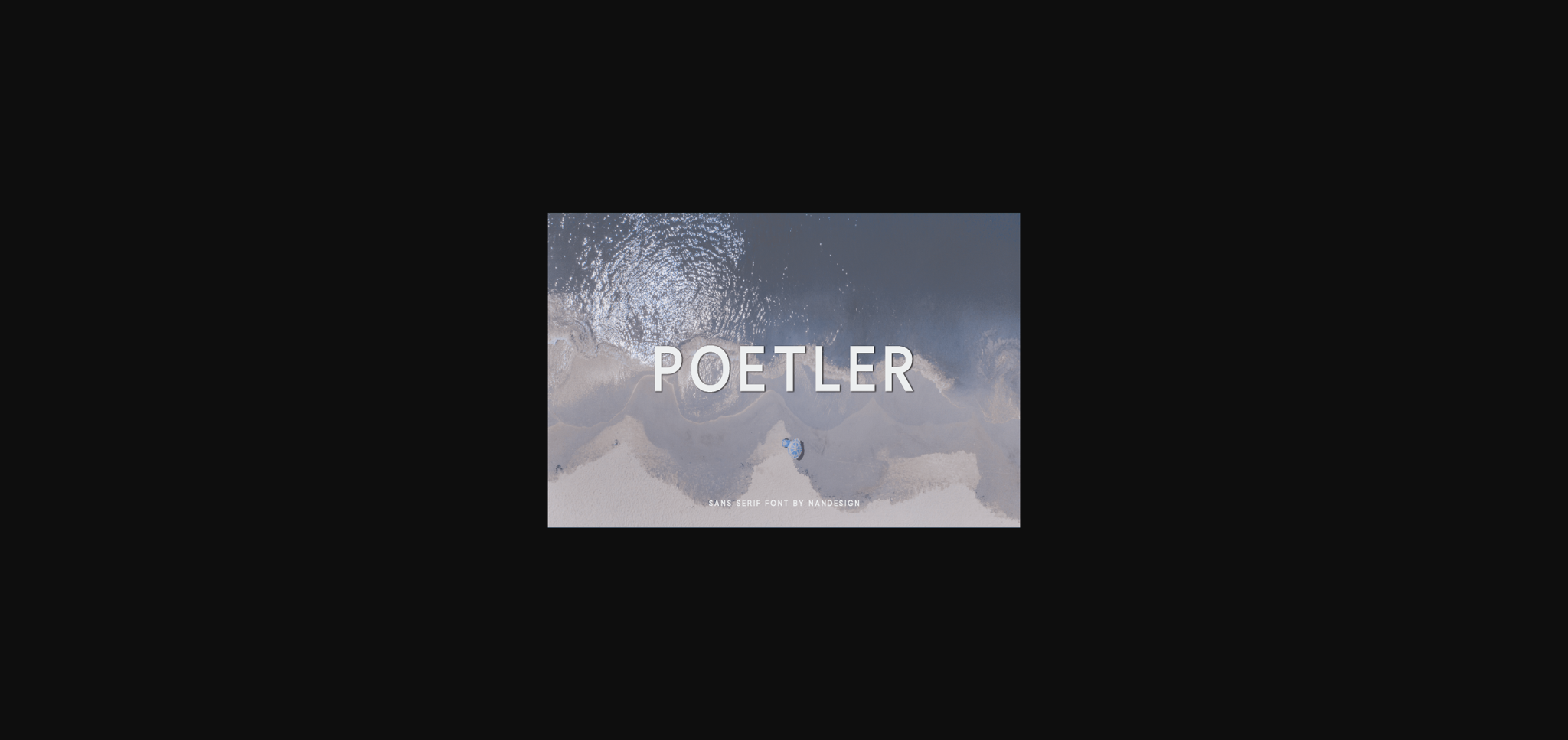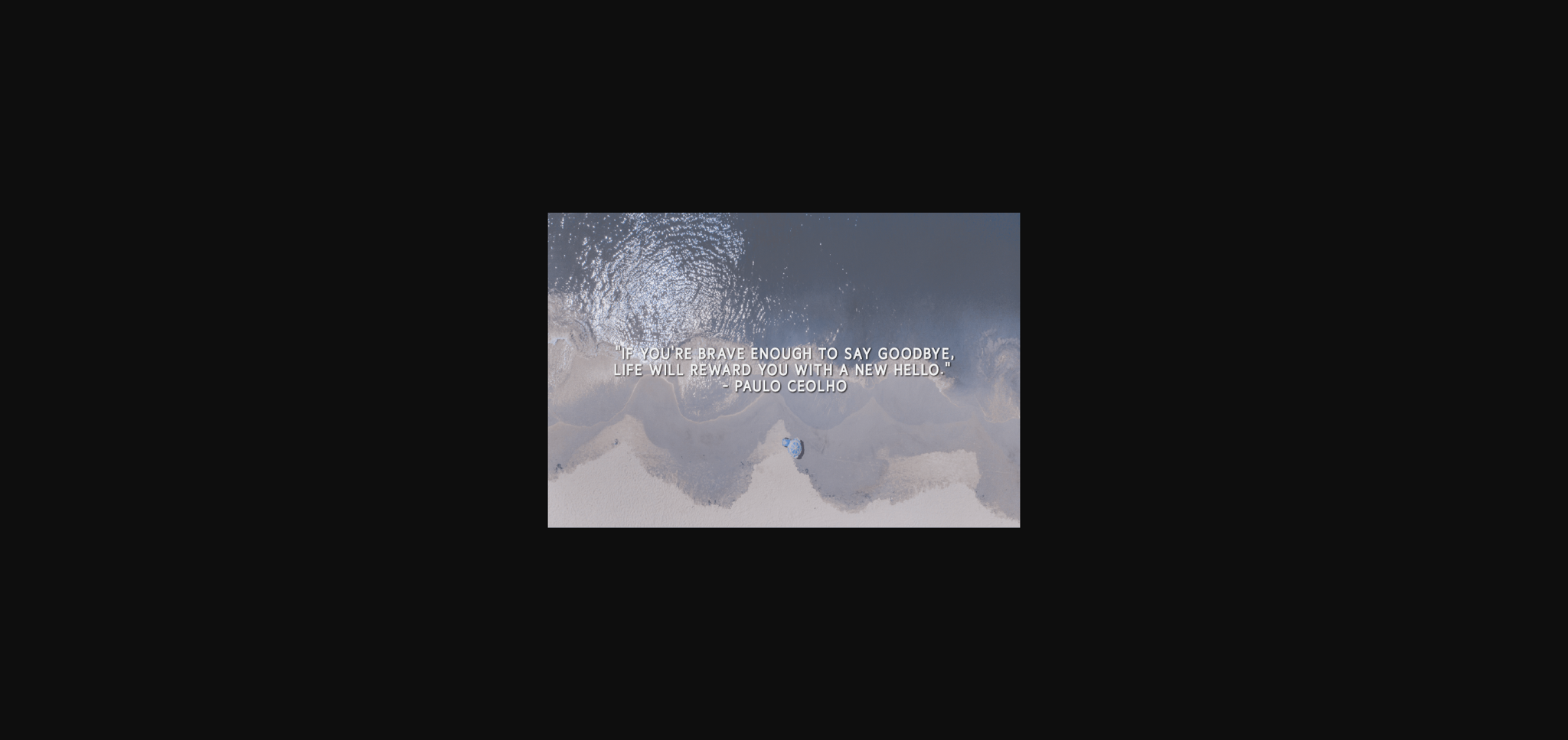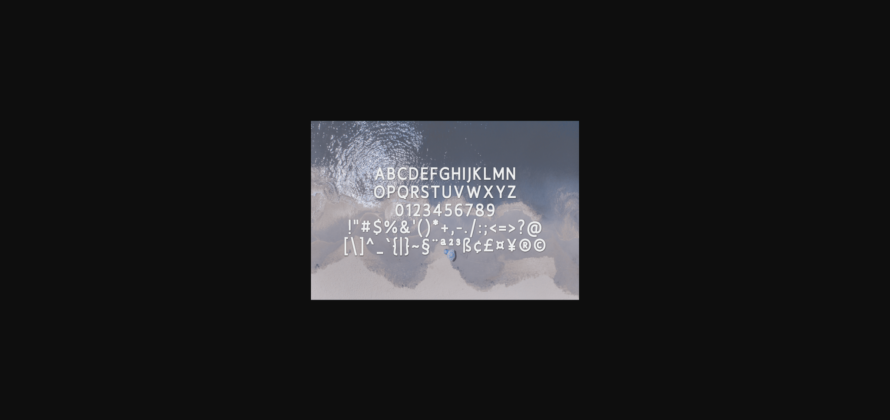
Poetler Font
About Poetler Font
Poetler is a minimal, yet distinct sans serif font. Suitable to a wide variety of designs due to its simple style, Poetler has the potential to become your favorite go-to font, no matter the occasion!